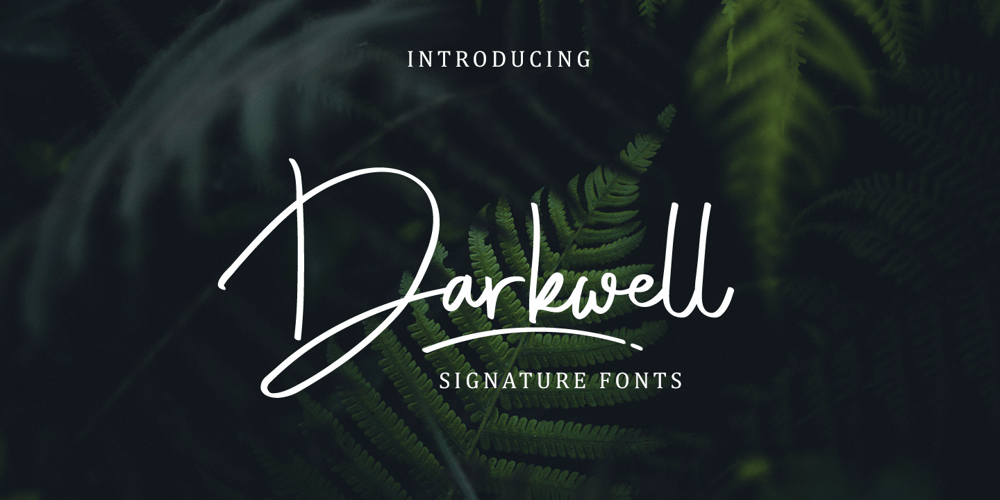
Darkwell Font Family was designed by Gustian Agung Asprilla and published by Rillatype. Darkwell contains 2 styles and family package options. Darkwell is a striking signature family. It includes two fonts. Darkwell 1 is a signature font but without loop on the letters, meanwhile Darkwell 2 is a signature font with a loop to make every connection each letters more smoothBoth fonts are perfect for branding projects or just to add a stylish touch to your background image.